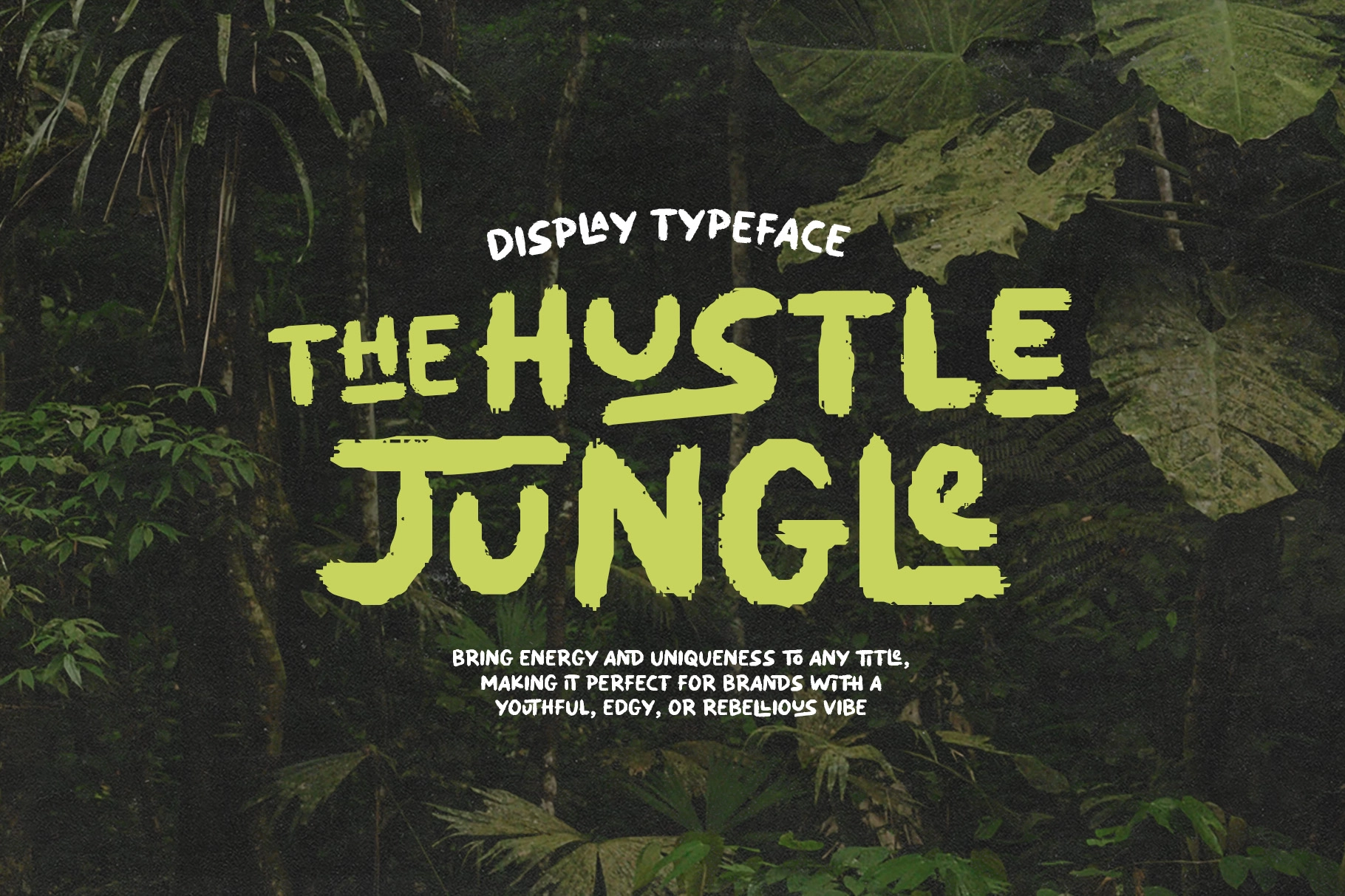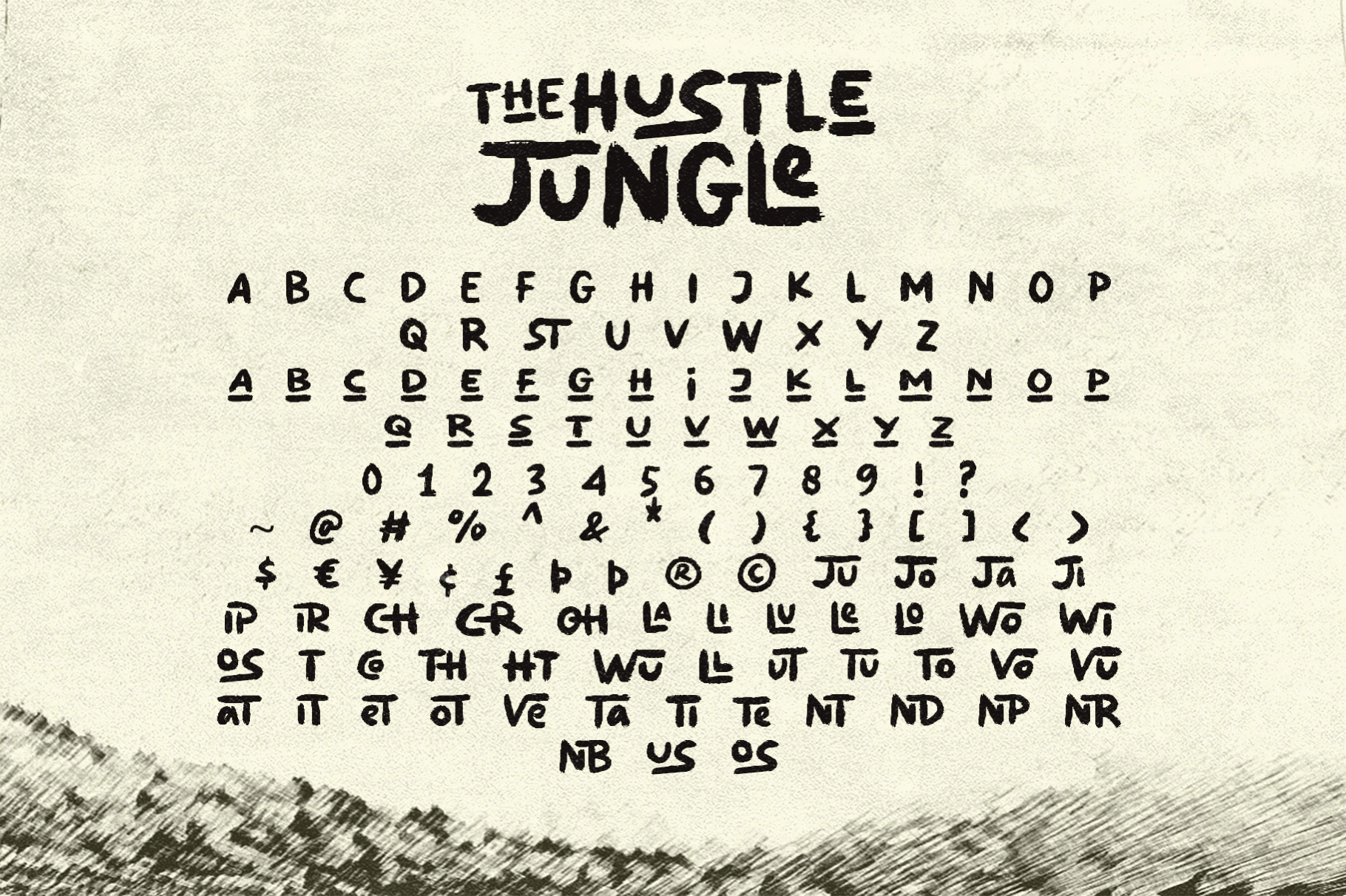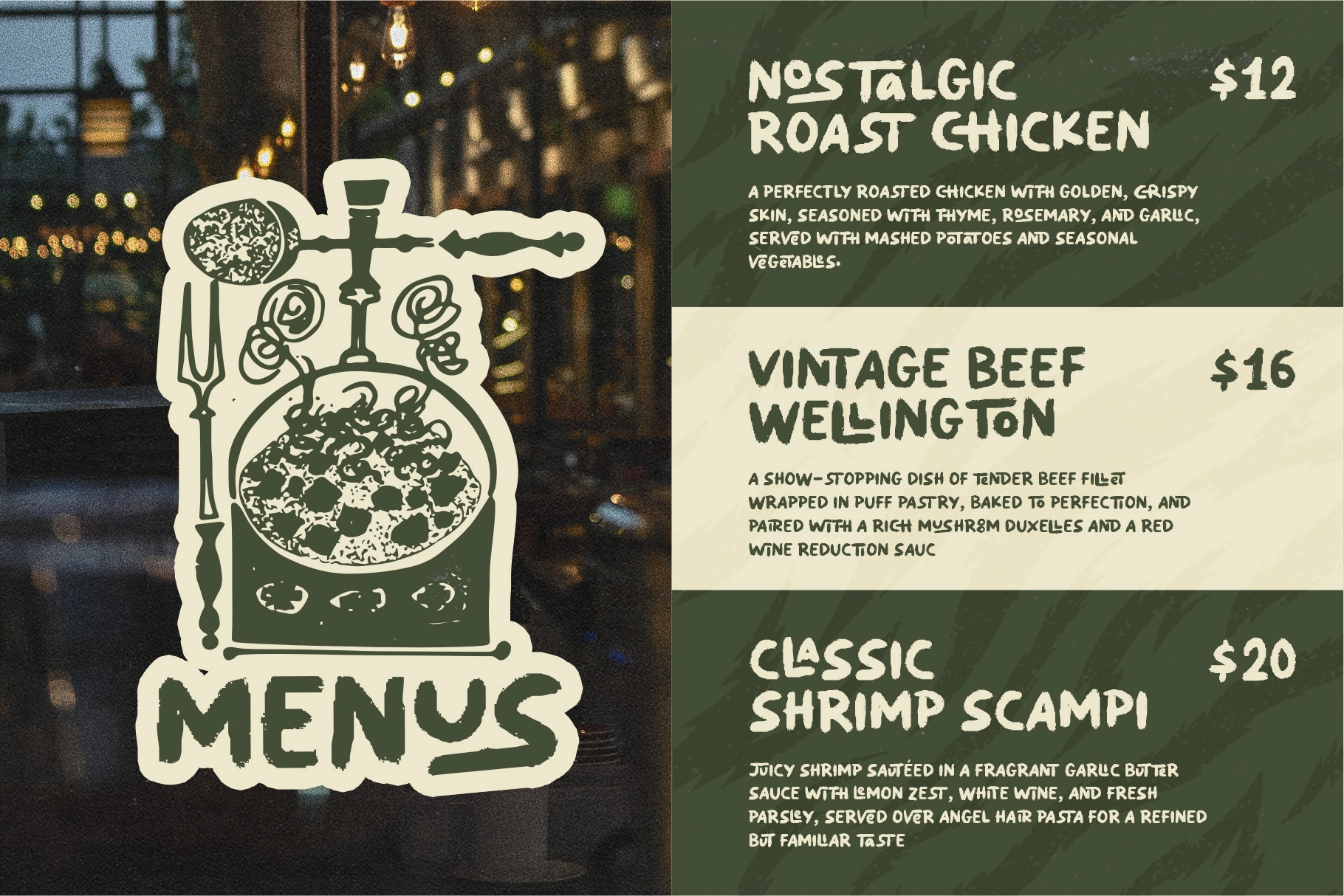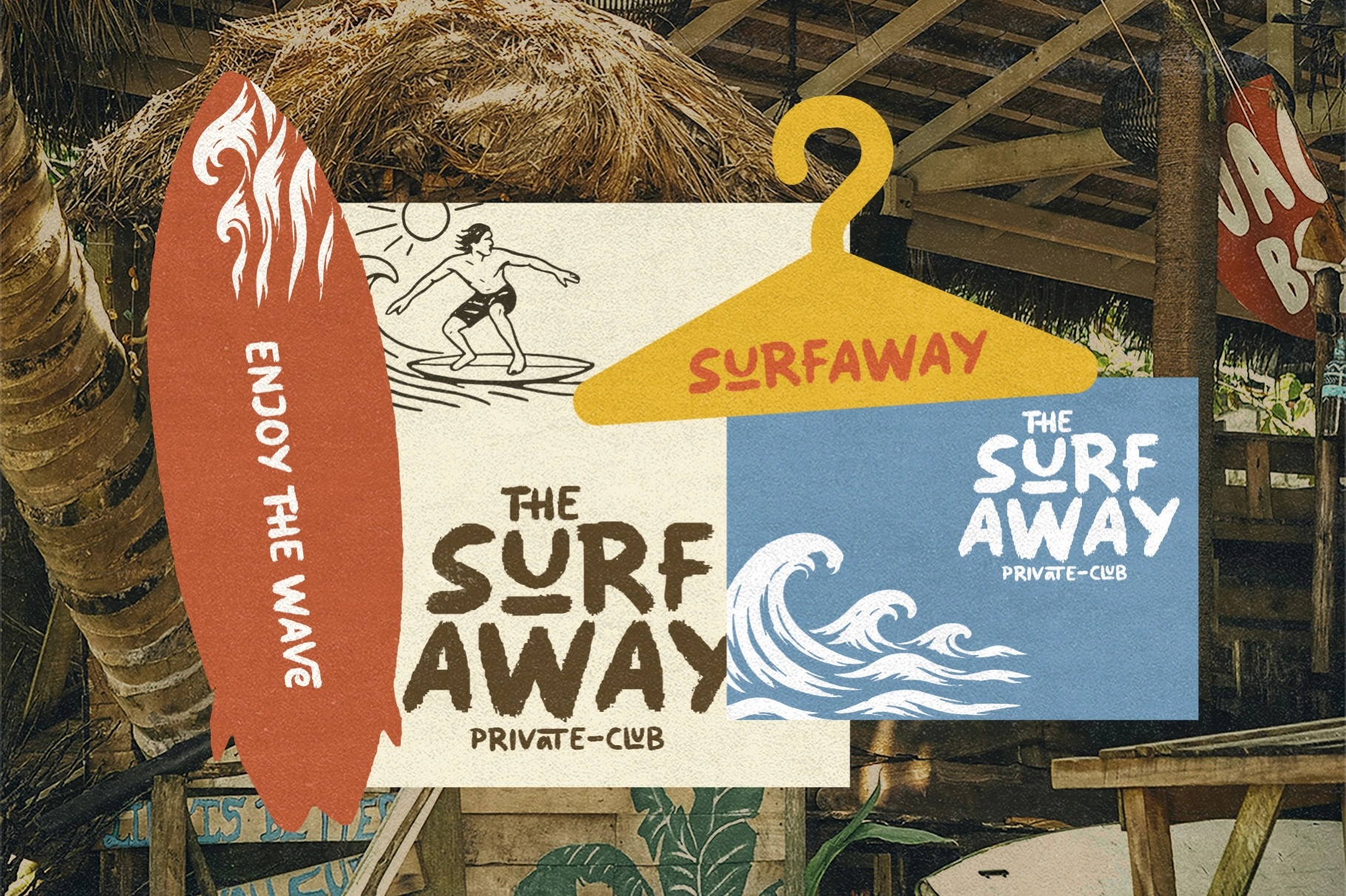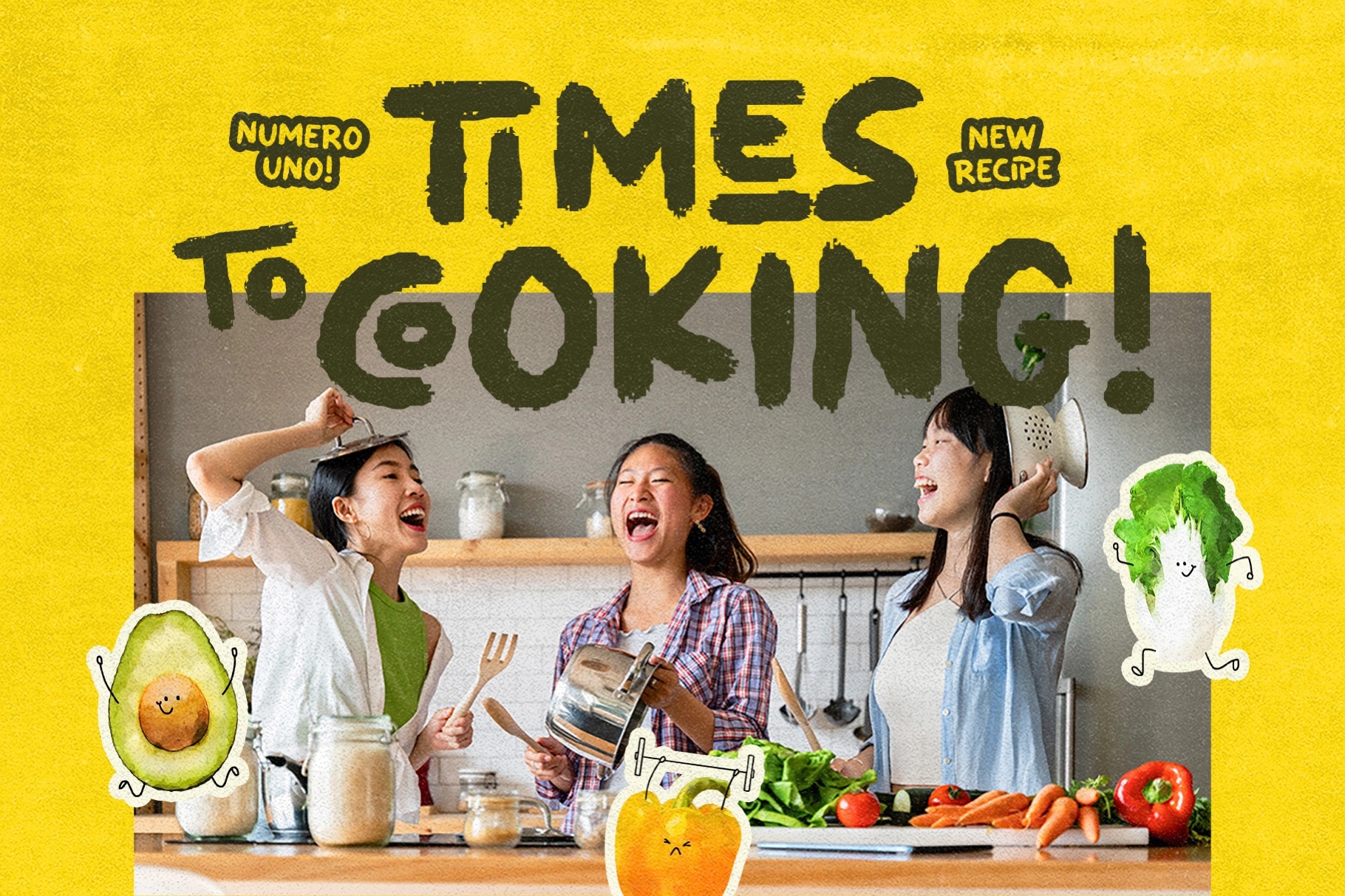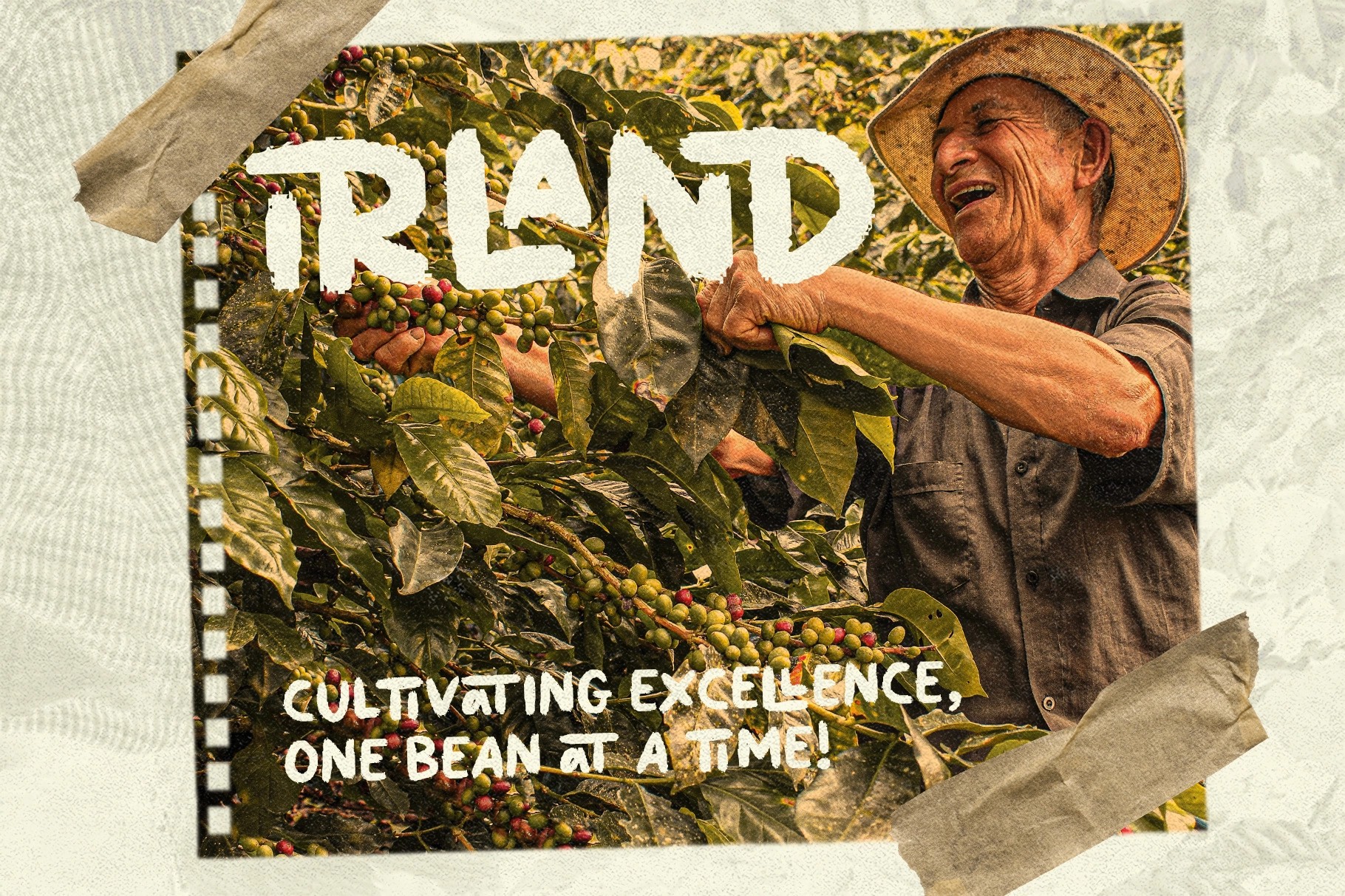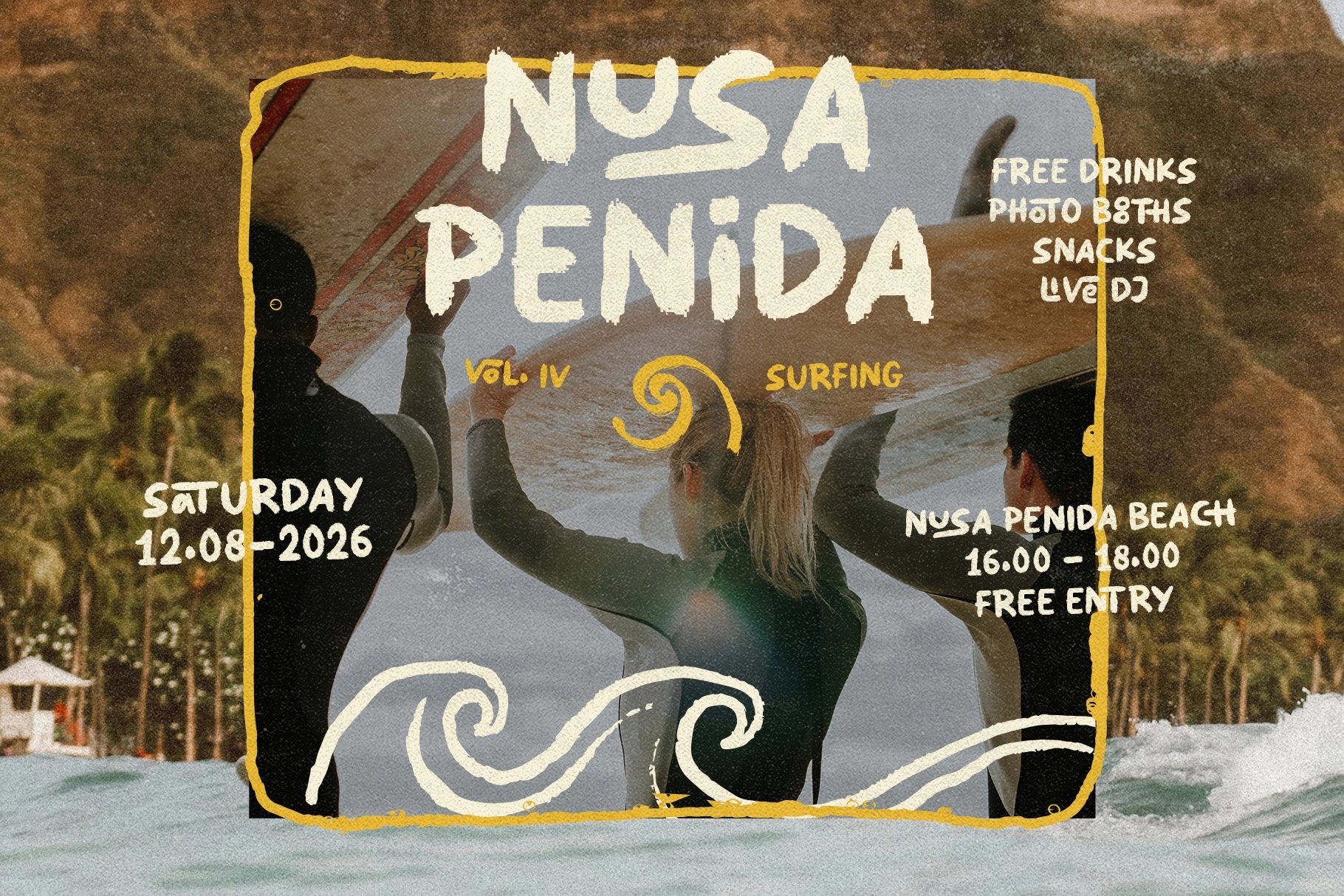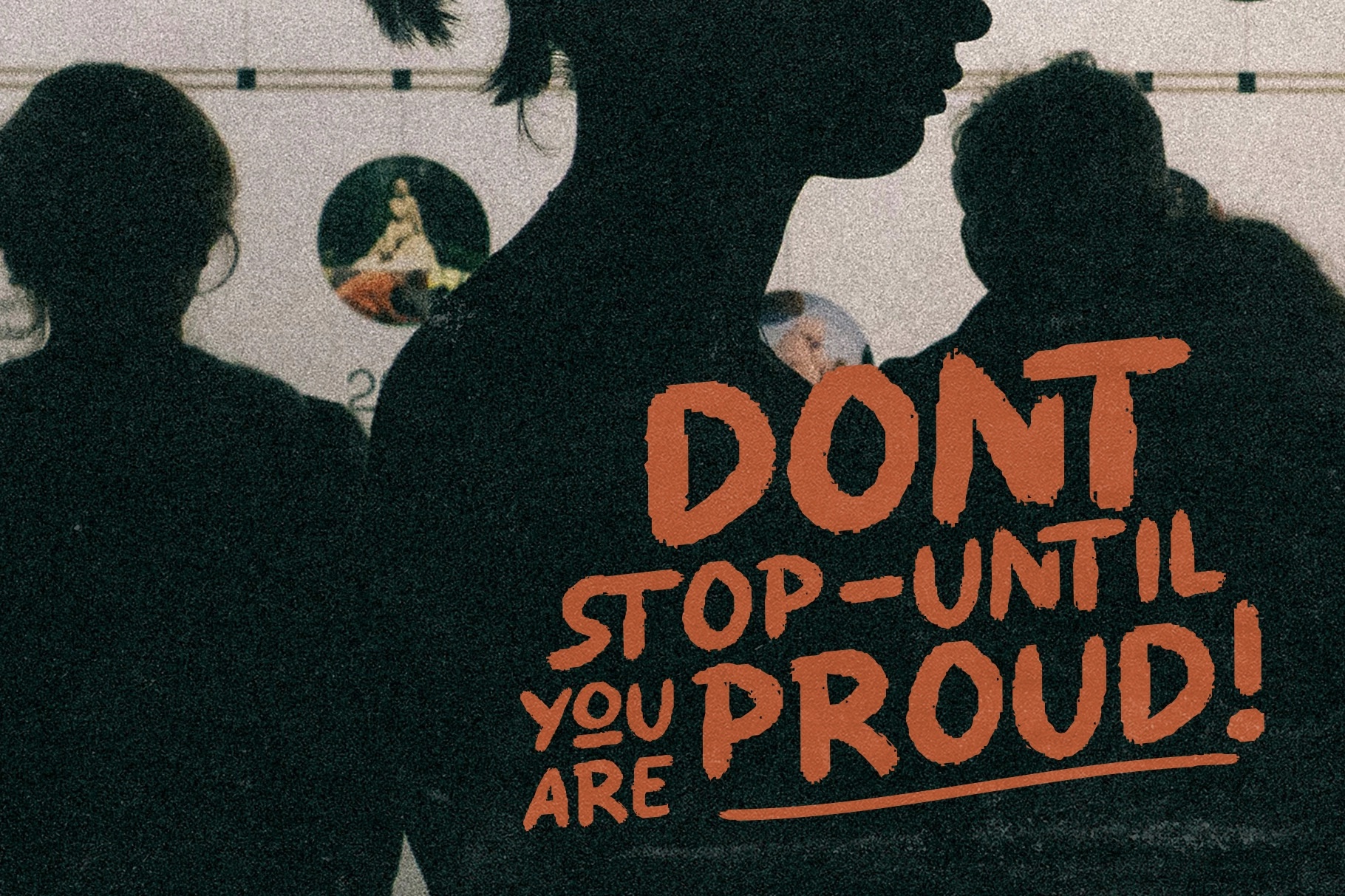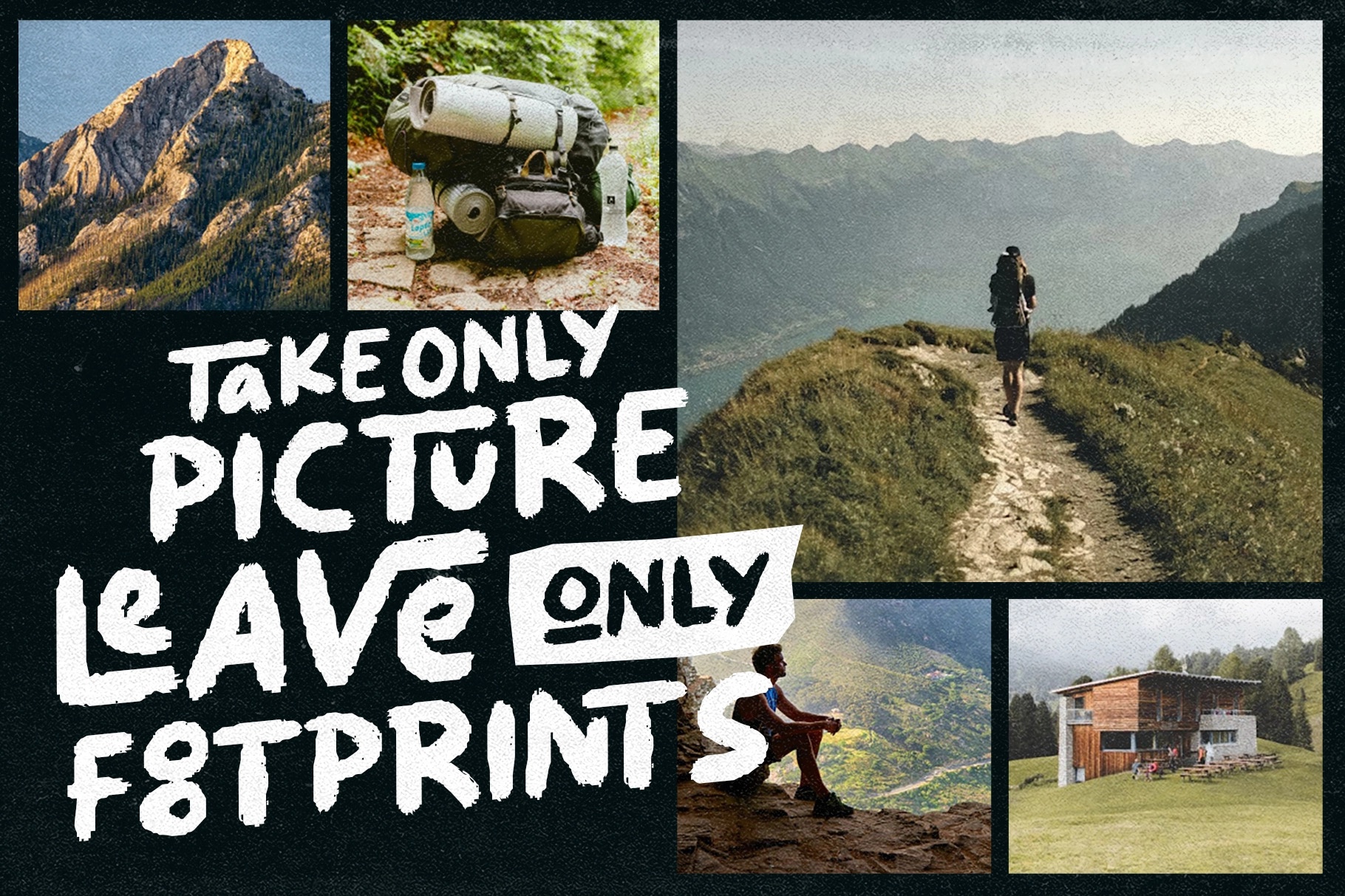
Hustle Jungle - Rough Brush Display Font
Hustle Jungle
Hustle Jungle, Rough Brush Display Font features uneven strokes, dry brush edges, and slightly jittered letterforms that mimic hand-painted signage. The previews show bold headlines over food posters, menu layouts, and jungle-themed compositions, where irregular contours and built-in ligatures create compact, expressive wordmarks.
- Uppercase & lowercase
- Rough brush style characters
- Ligatures
- Underline lowercase alternates